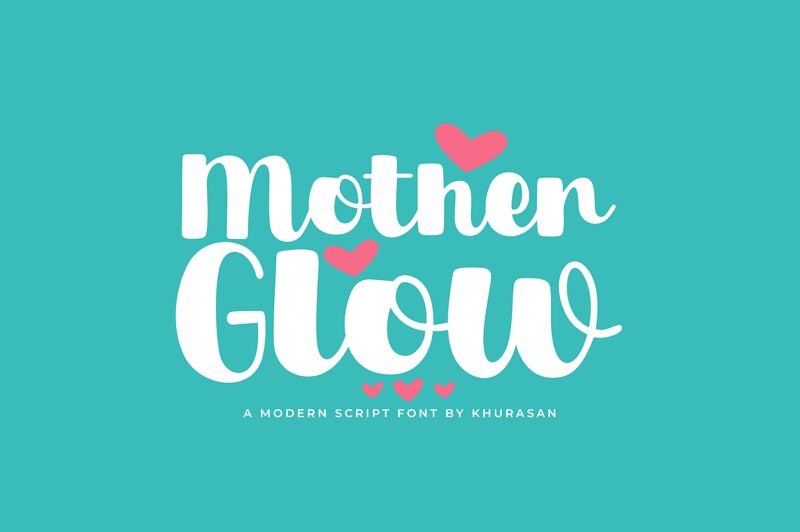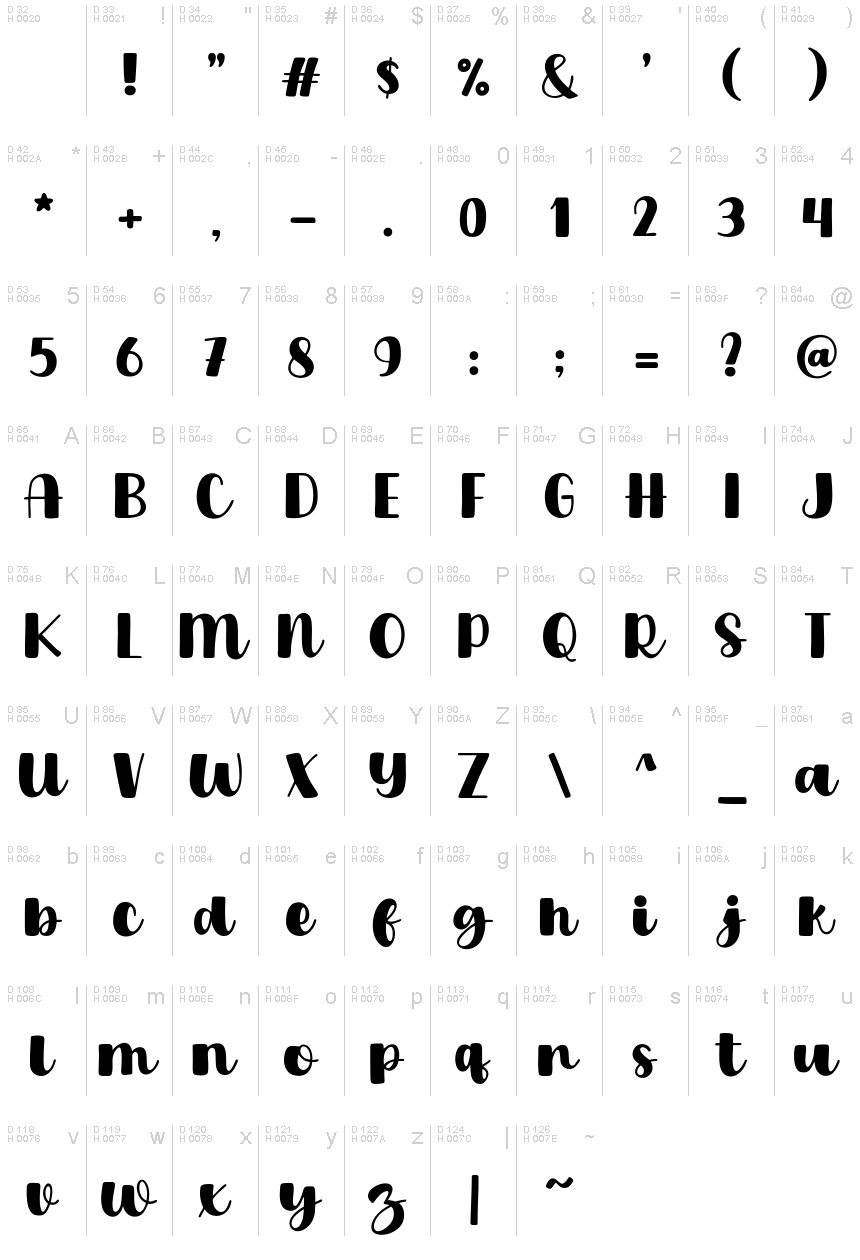
Mother Glow
Mother Glow, a modern script font designed by Khurasan, captivates with its bold, fluid strokes and a distinct sense of movement. This script font exudes a refined elegance, blending traditional calligraphic influences with a contemporary edge. The harmonious balance between the sharp, angular elements and the graceful, sweeping curves creates a visually striking and aesthetically pleasing typeface that evokes a sense of sophistication and timelessness.
Mother Glow's versatility shines through, making it a versatile choice for a wide range of design applications. From high-end branding and luxury packaging to editorial layouts and invitations, this font's bold presence and refined aesthetic lend themselves beautifully to projects that demand a touch of sophistication and elegance. Whether you're crafting a elegant wedding invitation or designing a chic product label, Mother Glow by Khurasan offers a captivating typographic solution that is sure to leave a lasting impression.